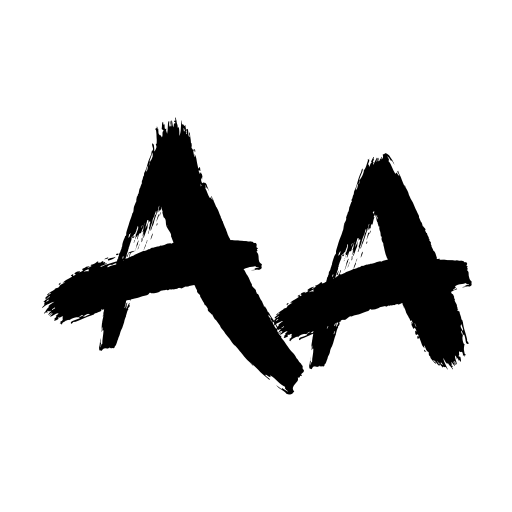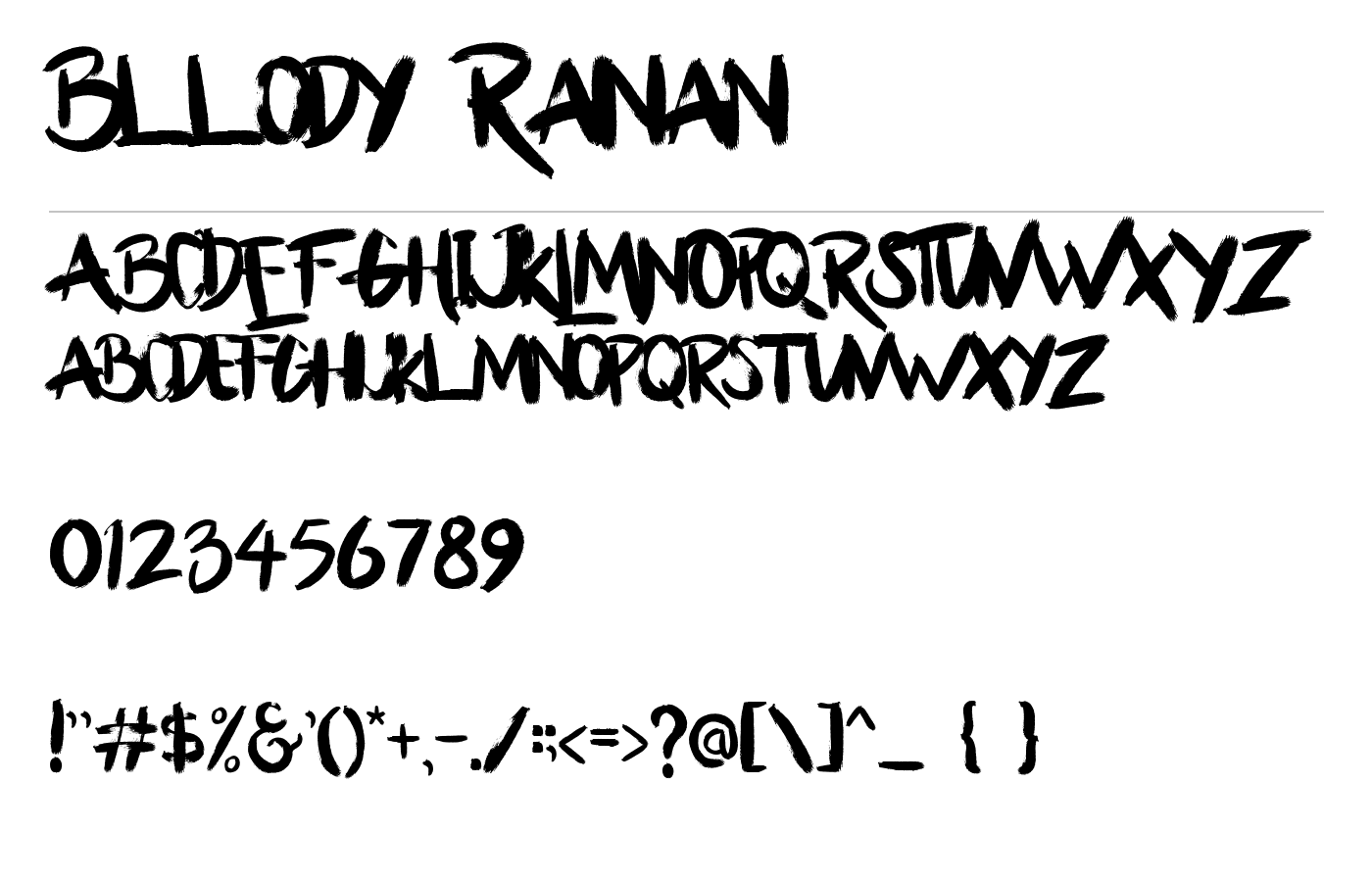
Bllody Rainan is a bold, expressive brush-style font that captures a rough, hand-painted look with strong, irregular strokes and dynamic energy. Its uppercase and lowercase letters share a casual, edgy vibe with distinctive textures, making it perfect for designs that want to feel raw, creative, and impactful. This font works well in posters, urban branding, and artistic projects where a bold, rebellious spirit is needed.
Bllody Rainan Font
About Bllody Rainan Font